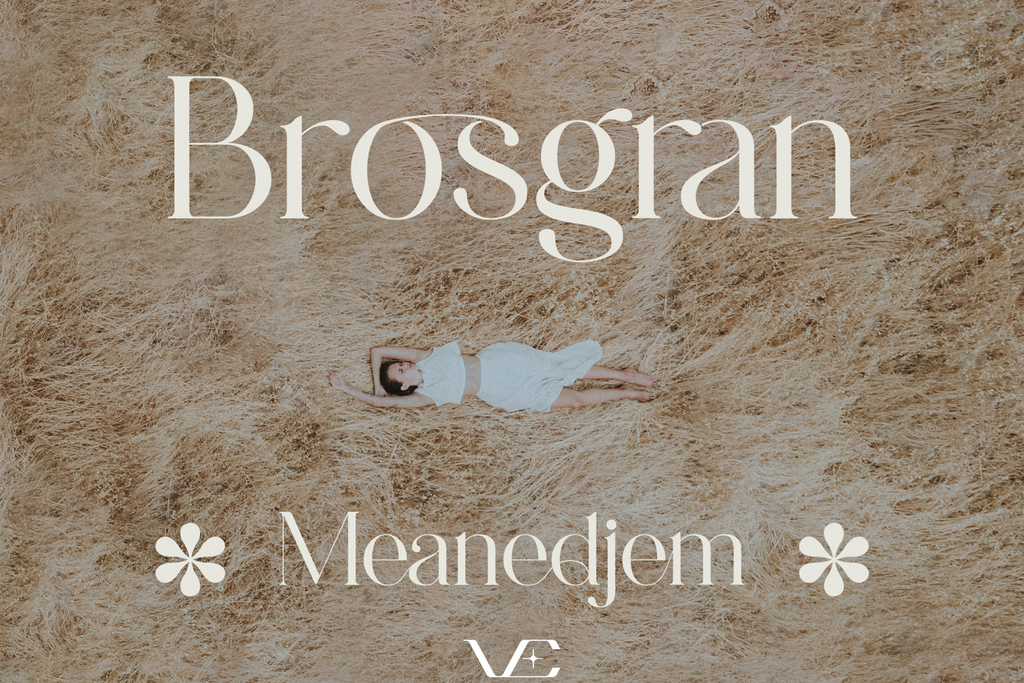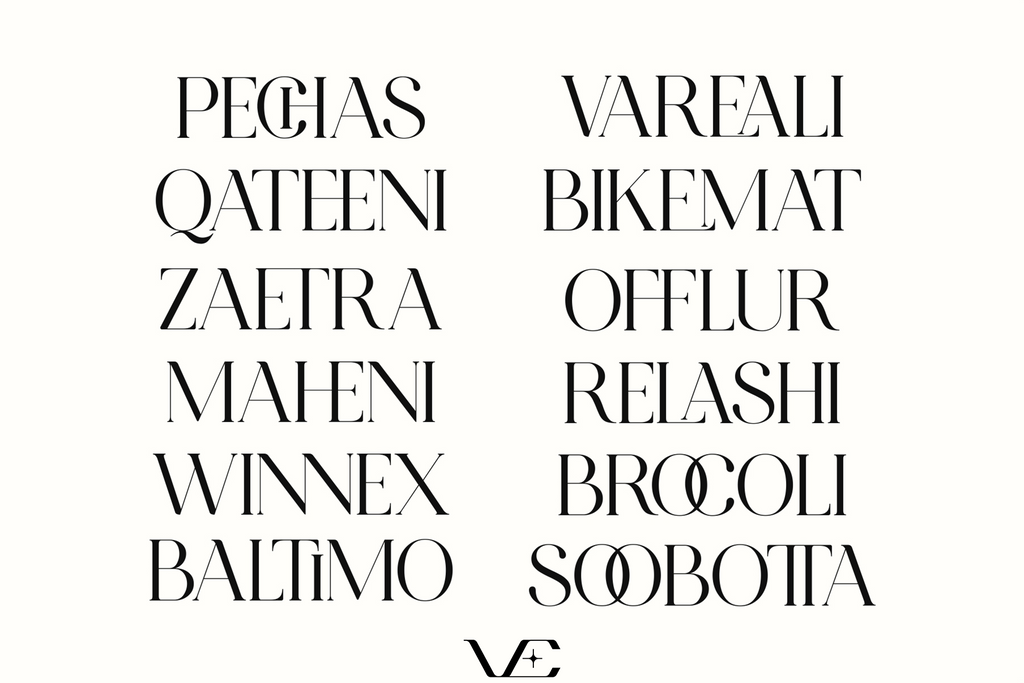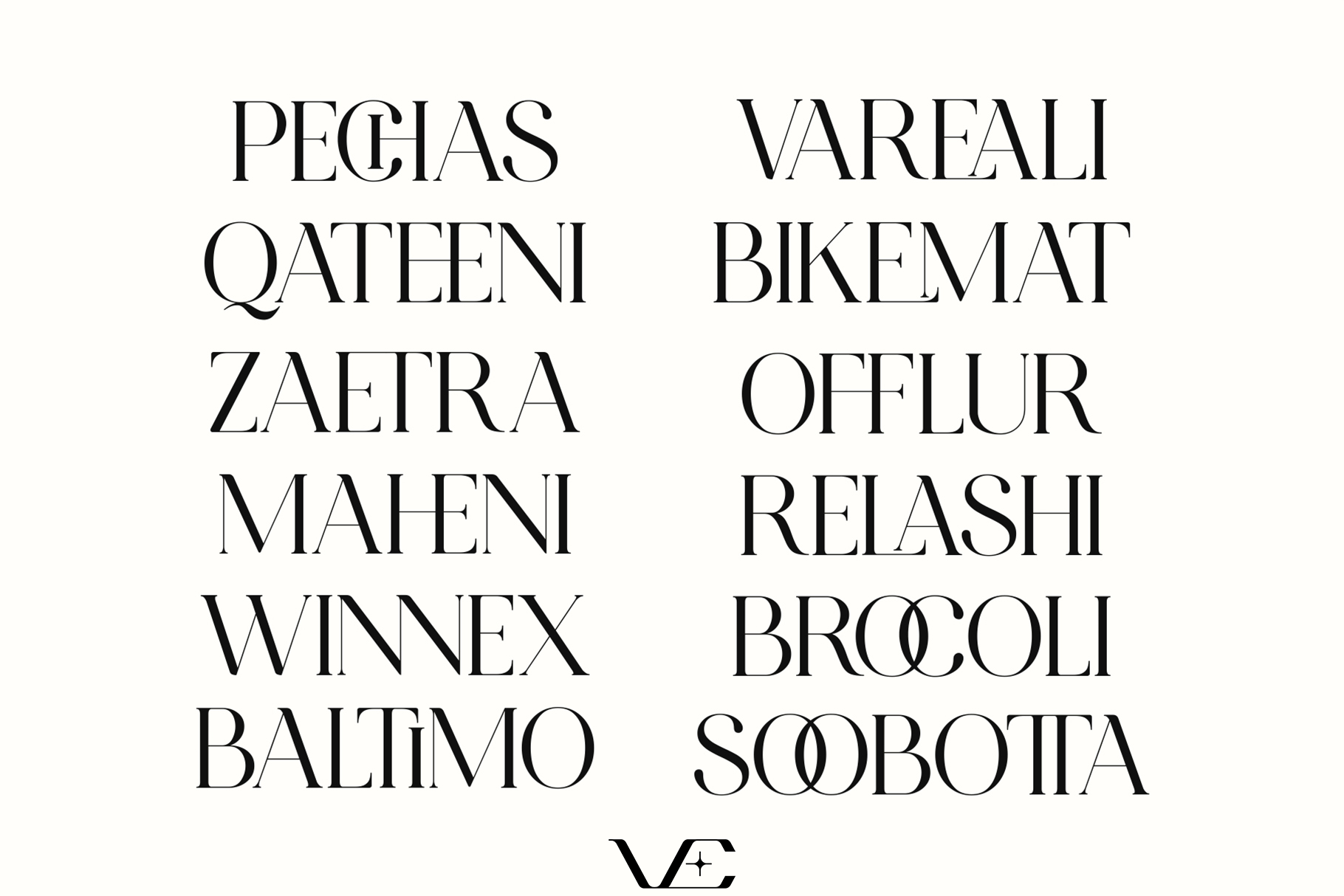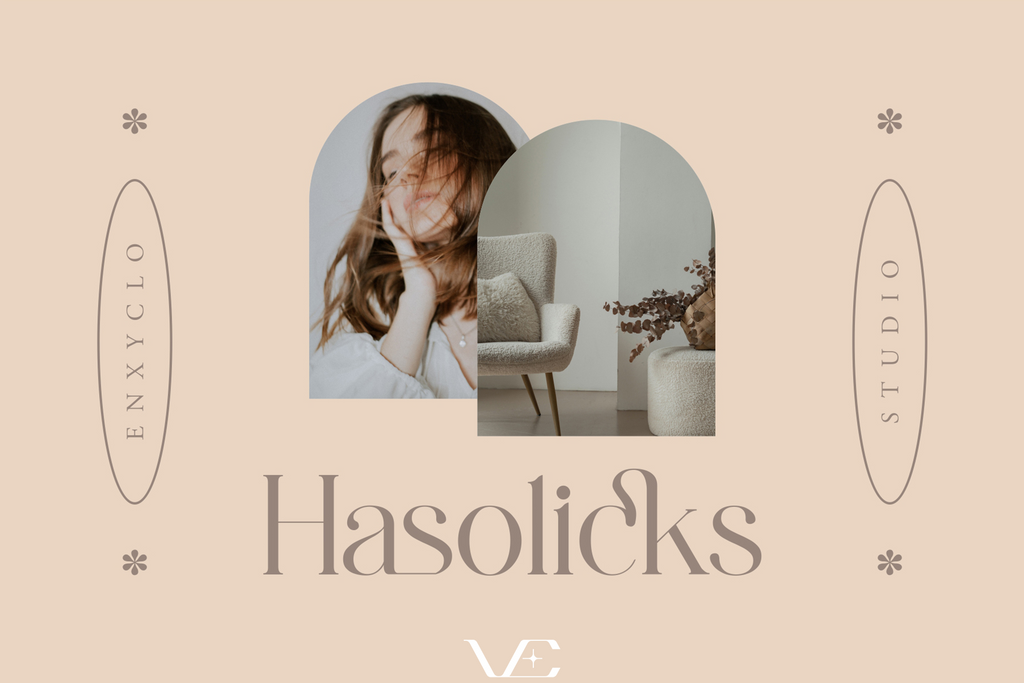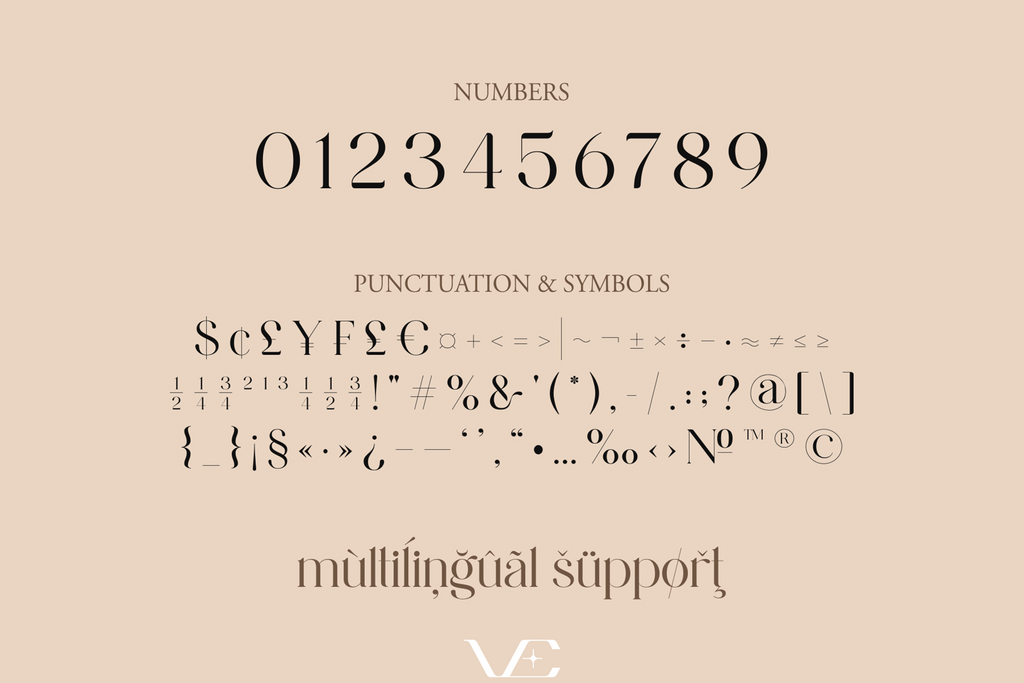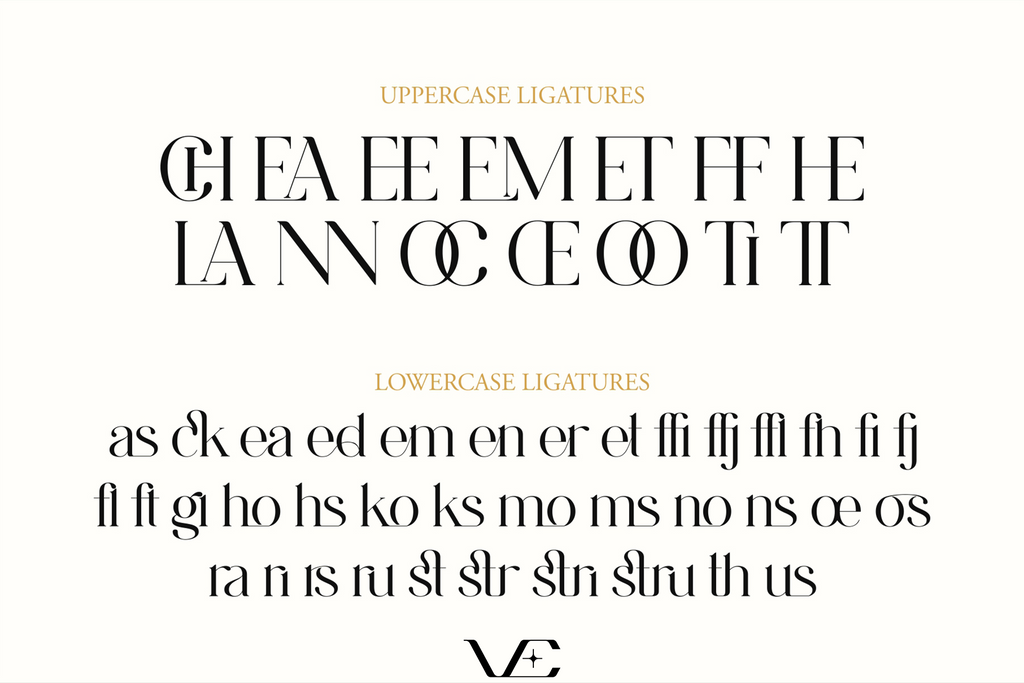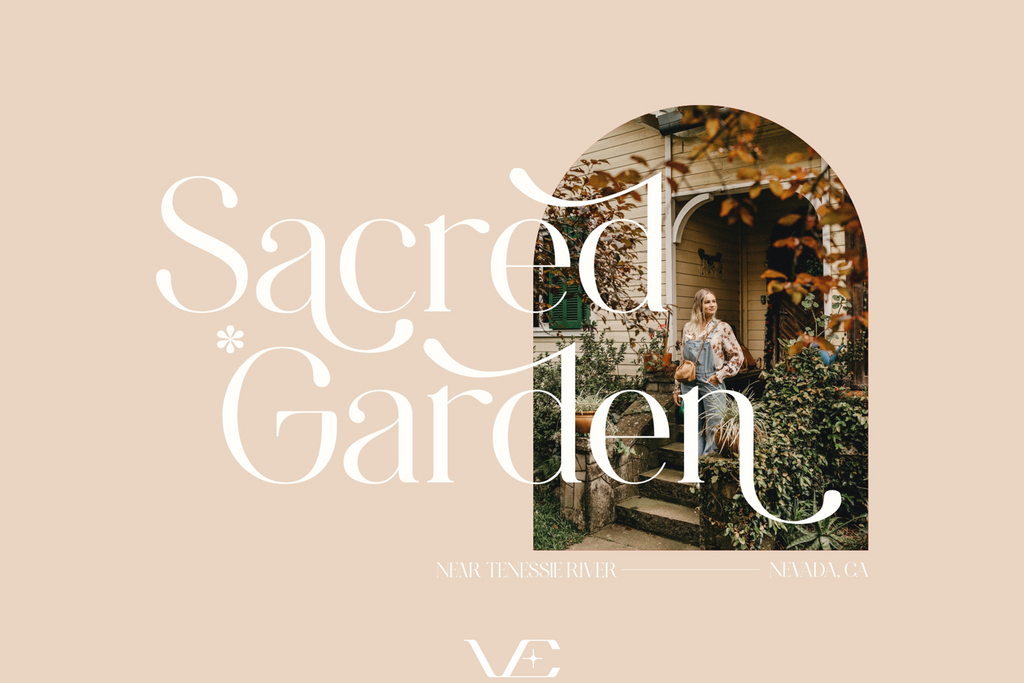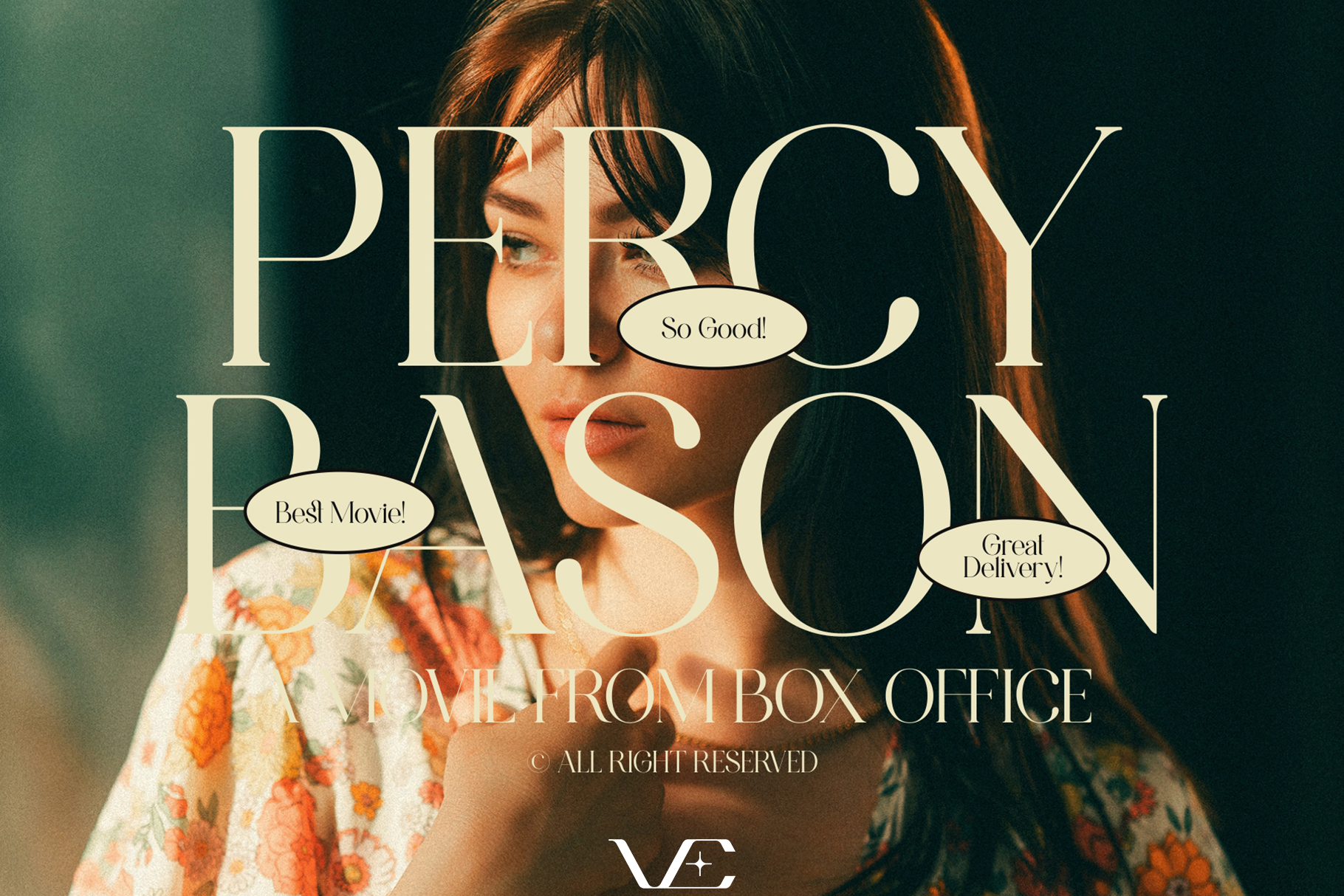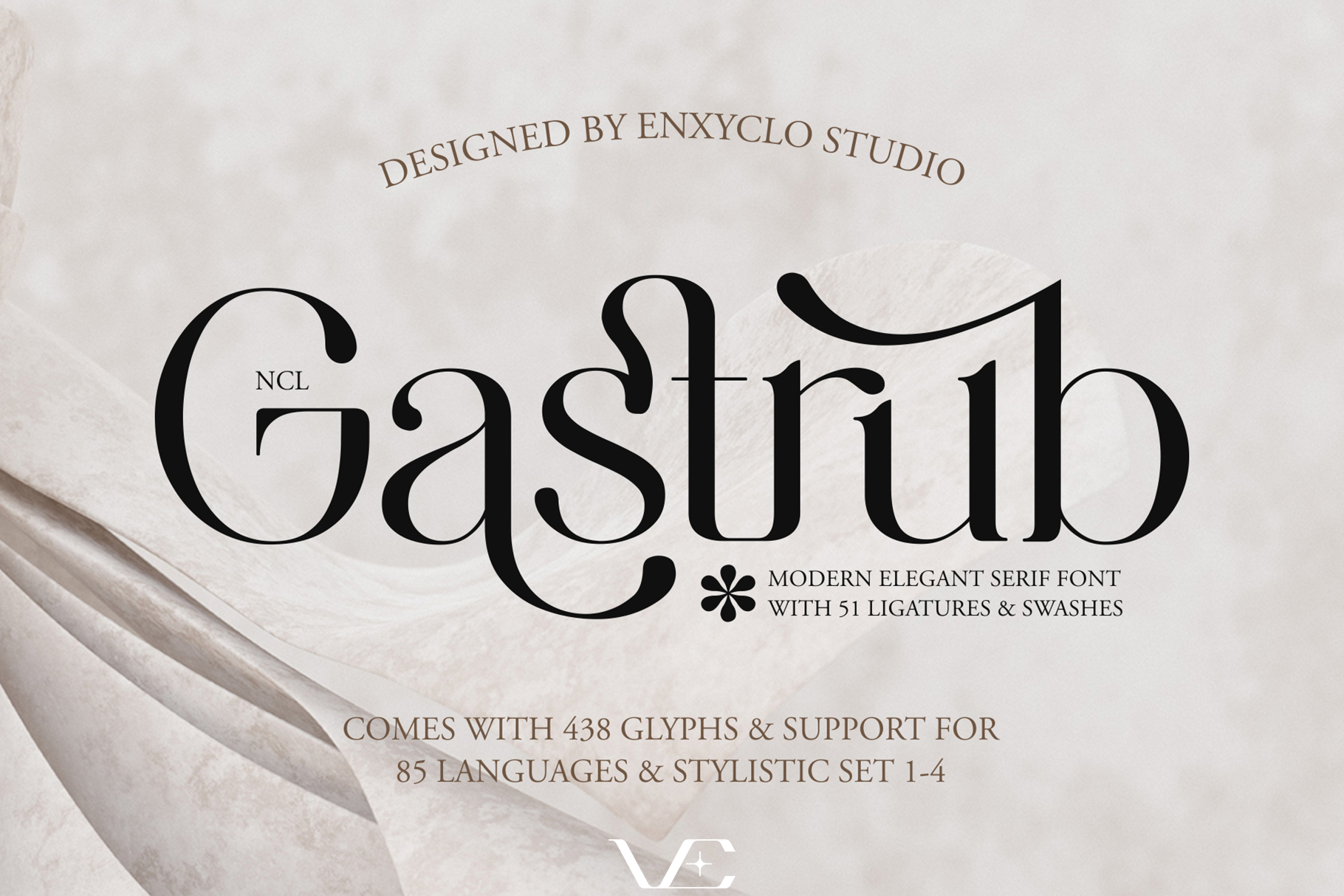
NCL GASTRUB • Serif Typeface
NCL GASTRUB is a modern elegant ligature and swashes font. Masterfully designed to become a true favorite, this font has the potential to bring each of your creative ideas to the highest level! It was purposely crafted to be used in large point sizes, although it doesn’t lose its magic in small point sizes. It is perfect for wedding, headline, billboard, magazines, website, titles, poster, branding, and logos. No matter the topic, this font will be an incredible asset to your fonts’ library, as it has the potential to elevate any creation. With this beautiful font, absolutely you can make your project stand out from the rest.
- Contains 438 Glyphs
- Uppercase & Lowercase
- Numeral, Punctuation & Symbols
- Stylistic Set 1-4
- Multilingual Support